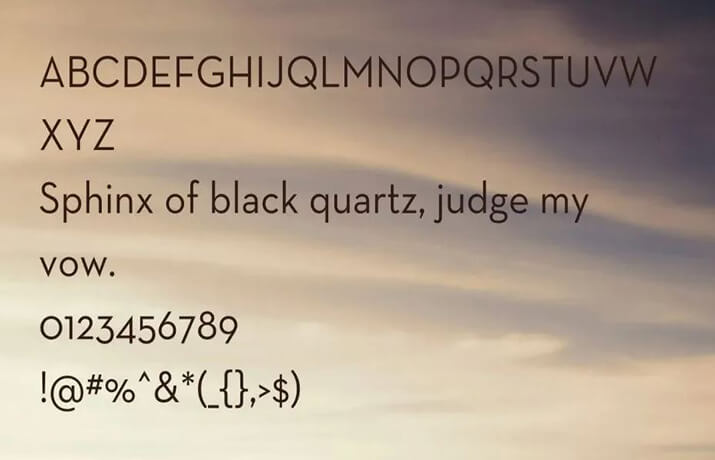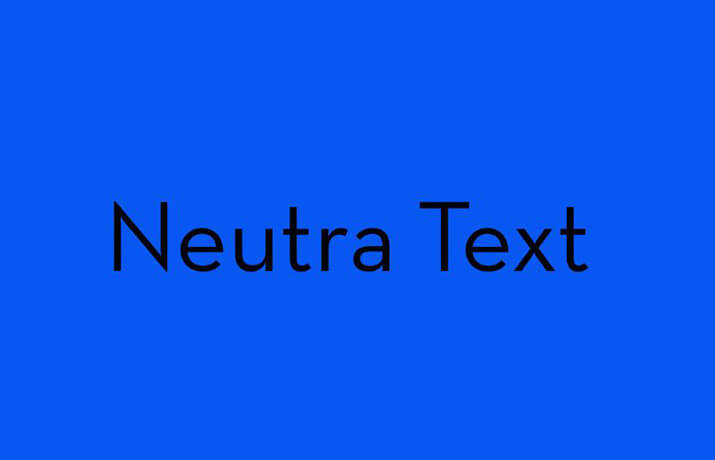
When it comes to amazing fonts, there are a lot of choices. Why not consider a display, sans serif look? Neutra Text Font would be a great fit for T-shirts, posters, and other designs.
It was designed in 2002 by two famous designers, Richard Neutra and Christian Schwartz, for the works of architects and released through American Typeface Foundry.
It comes in an amazing texture with a cool texture. Compared to the standard size, its structure is less in height and width. And the space between letters is the standard size.
So, you can create amazing unique designs. And also if you want to use it with others, you also have the choice to use it with them.
| Font Name: | Neutra Text Font Family |
| Style: | Sans serif, Display, Typeface |
| Font Designer: | Richard Neutra, Christian Schwartz |
With its beautiful structure, you can create book covers, long text paragraphs, special event cards, unique signs, game graphics, product designs, official cards, watermarks, newspapers, and many other places.
This font family comprises 4 stunning styles and weights including Bold, Bold Italic, Book, and Book Italic.
You can see that the overall texture of the font is similar to the sans-serif fonts. Therefore, it is considered best for this reason.